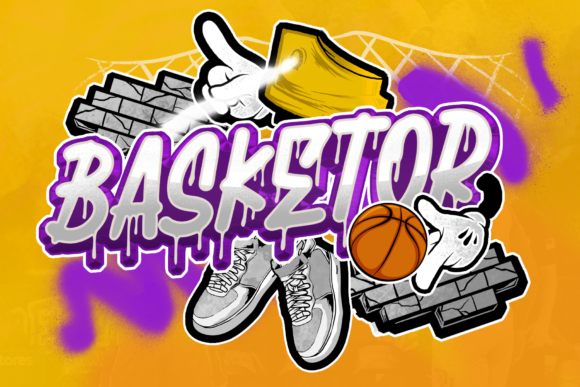
Basketor Font: The Ultimate Urban Display Font for Stunning Designs
In the world of typography, fonts play a crucial role in making or breaking a design. A well-chosen font can elevate your design to new heights, while a poorly chosen one can make it look dull and unappealing. If you’re looking for a font that can add a touch of urban grit and boldness to your designs, look no further than Basketor Font. In this article, we’ll explore the features and benefits of Basketor Font, and how it can be used to create stunning designs that grab attention.
What is Basketor Font?
Basketor Font is a urban and bold looking display font that is perfect for creating striking designs. Its unique and edgy design makes it ideal for use on posters, flyers, prints, and other marketing materials. The font is designed to make a statement, and its bold and condensed style ensures that your message gets noticed.
Key Features of Basketor Font
- Urban and Bold Design: Basketor Font has a unique urban and bold design that sets it apart from other fonts.
- Display Font: The font is specifically designed for use as a display font, making it perfect for headlines, titles, and other attention-grabbing elements.
- Condensed Style: The condensed style of the font makes it perfect for use on posters, flyers, and other marketing materials where space is limited.
- Easy to Read: Despite its bold and condensed style, Basketor Font is easy to read, even at smaller sizes.
Benefits of Using Basketor Font
So, why should you use Basketor Font for your designs? Here are just a few benefits of using this amazing font:
1. Grabs Attention
Basketor Font is designed to grab attention. Its bold and condensed style ensures that your message gets noticed, even in a crowded design landscape.
2. Adds Urban Grit
If you’re looking to add a touch of urban grit to your designs, Basketor Font is the perfect choice. Its unique and edgy design makes it ideal for use on designs that require a bit of attitude.
3. Versatile
Basketor Font is a versatile font that can be used on a wide range of designs, from posters and flyers to prints and other marketing materials.
4. Easy to Use
Basketor Font is easy to use, even for those who are new to design. Its simple and intuitive design makes it easy to get started, and its extensive documentation ensures that you can get the most out of the font.
How to Use Basketor Font
Using Basketor Font is easy. Here are just a few tips to get you started:
1. Choose the Right Size
Basketor Font is designed to be used at larger sizes, so choose a size that makes an impact. You can use the font at smaller sizes, but it’s best suited for headlines and titles.
2. Pair with Other Fonts
Basketor Font can be paired with other fonts to create a unique and interesting design. Try pairing it with a sans-serif font for a bold and modern look.
3. Experiment with Colors
Basketor Font looks great in bold and bright colors. Experiment with different colors to find the one that works best for your design.
Endless Possibilities with Basketor Font
Basketor Font offers endless possibilities for designers. Here are just a few ideas to get you started:
1. Posters and Flyers
Basketor Font is perfect for use on posters and flyers. Its bold and condensed style ensures that your message gets noticed, even from a distance.
2. Print Materials
Basketor Font can be used on a wide range of print materials, from brochures and catalogs to business cards and letterheads.
3. Digital Designs
Basketor Font can also be used on digital designs, such as social media graphics, website headers, and email newsletters.
In conclusion, Basketor Font is a powerful and versatile font that can add a touch of urban grit and boldness to your designs. Its unique and edgy design makes it perfect for use on posters, flyers, prints, and other marketing materials. With its endless possibilities and ease of use, Basketor Font is a must-have for any designer looking to take their designs to the next level.